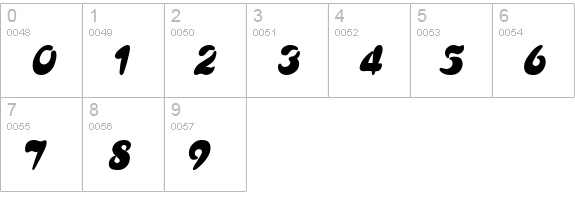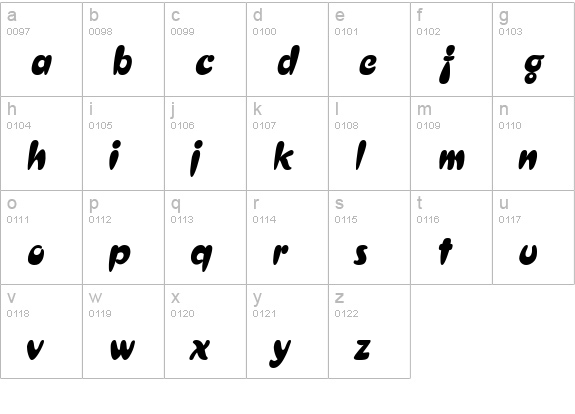
Crest Italic is a distinctive, italic variant in the Crest typeface family \xE2\x80\x94 well suited to design and typography projects.
Crest Italic font is a sleek and sophisticated typeface that exudes elegance and modernity. Its italicized style adds a touch of flair and sophistication to any design project, making it perfect for use in branding, advertising, and editorial content. The fluid lines and graceful curves of Crest Italic font give it a timeless appeal that stands out in both print and digital mediums. The best part? Crest Italic font is available for free download at FontsMarket.com. This means you can easily access this stylish font and incorporate it into your creative projects without any cost. Whether you're designing a logo, creating a poster, or working on a website, Crest Italic font is sure to elevate your work with its refined aesthetic and professional look. Don't miss out on the opportunity to enhance your designs with Crest Italic font - download it for free today at FontsMarket.com and bring a touch of sophistication to your projects.